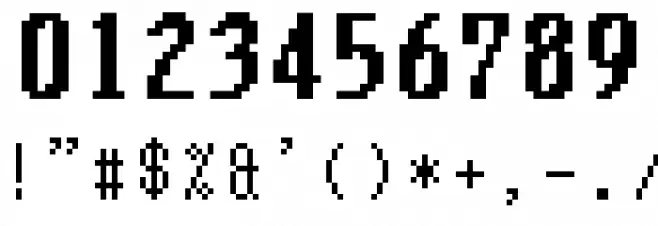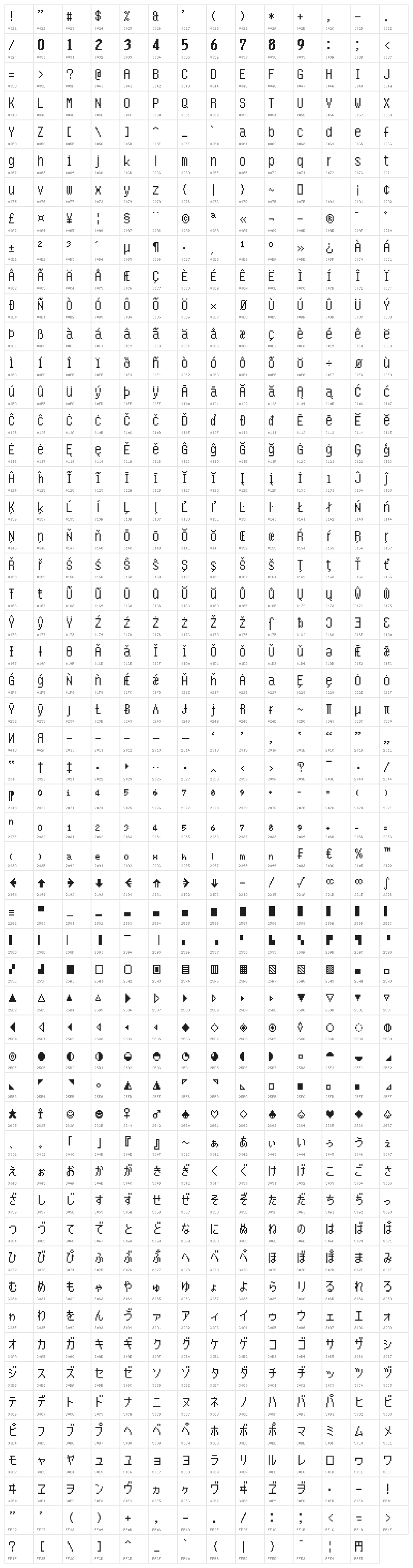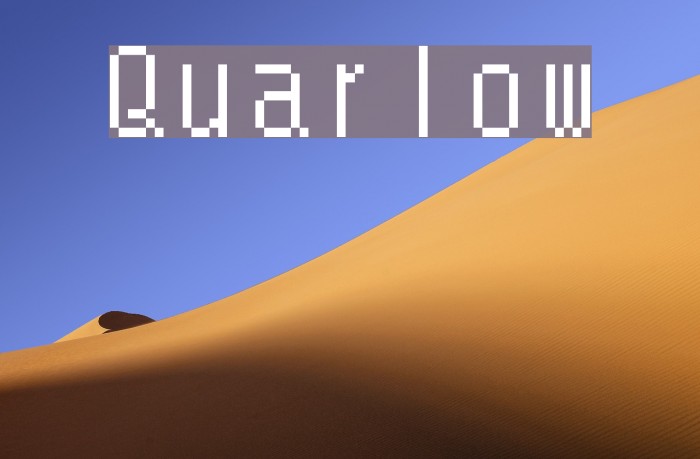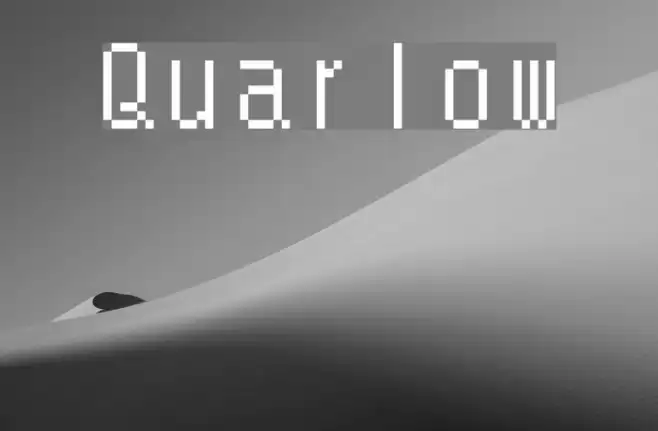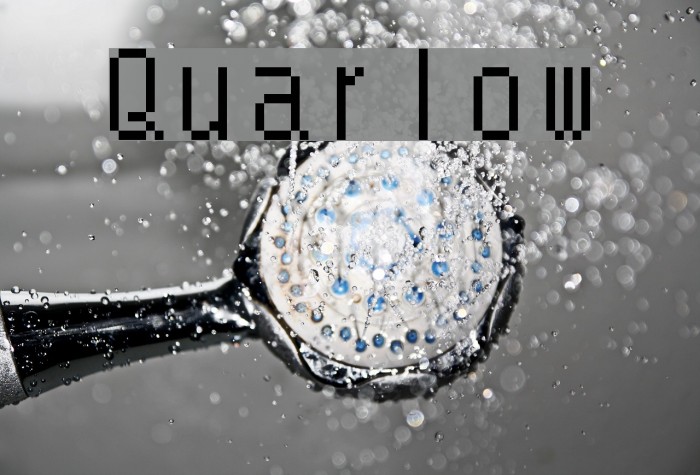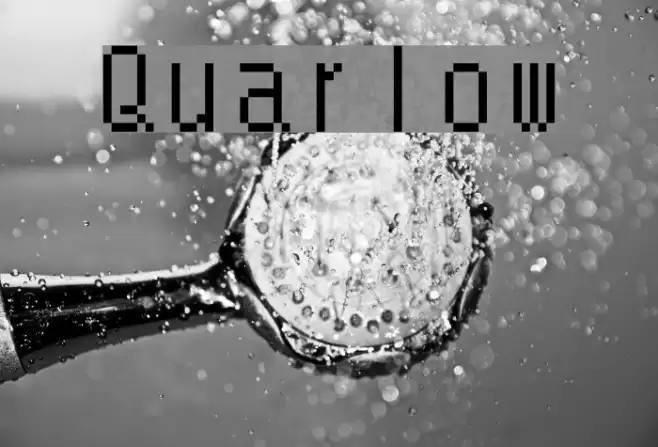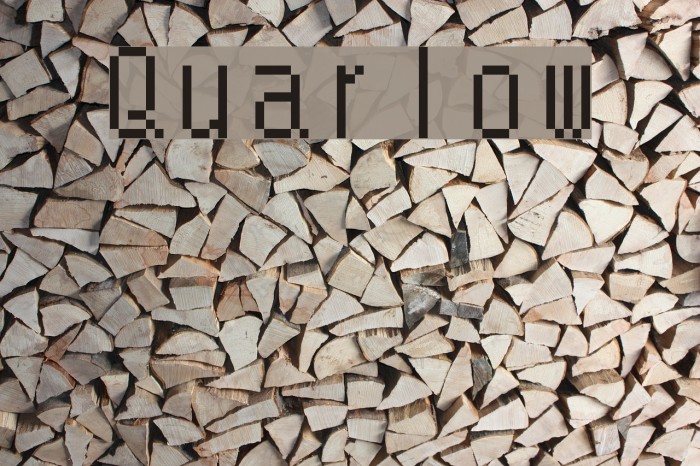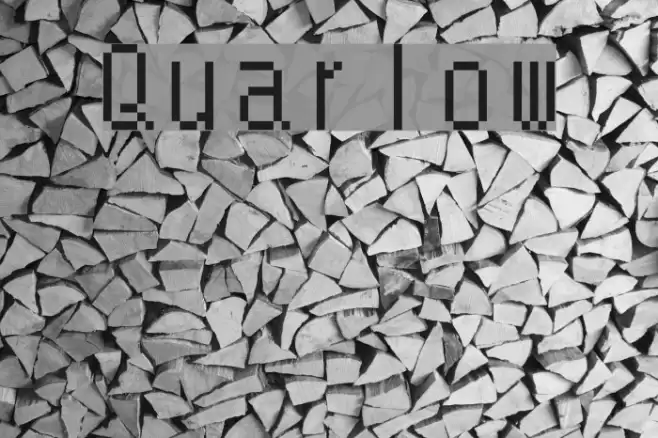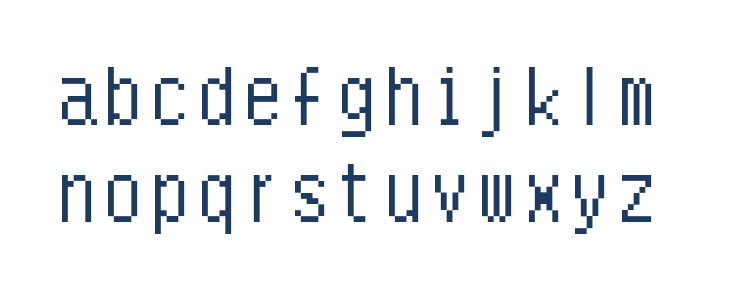
Quarlow Font
Quarlow Description
This font features a pixelated, monospaced design reminiscent of early computer and video game typography. Each character is uniformly spaced, giving it a structured and mechanical appearance. The uppercase and lowercase letters maintain a consistent height, contributing to its blocky and geometric style. The numerals and special characters follow the same pixelated pattern, ensuring uniformity across all glyphs. This font evokes a sense of nostalgia, ideal for projects that aim to capture the essence of retro digital aesthetics.
| Use Case | Logos, Digital displays, Coding environments |
| Proposed Projects | Ideal for retro video games, digital art projects, coding environments, and any design that seeks a vintage computer aesthetic. |